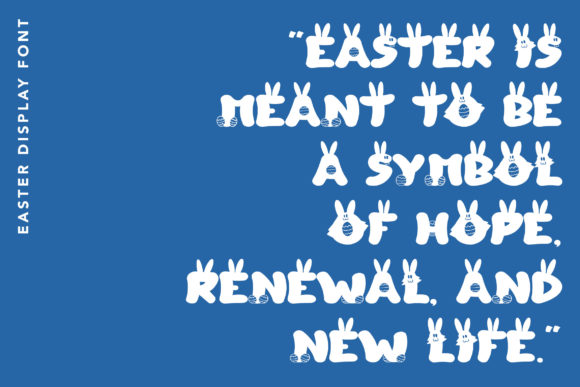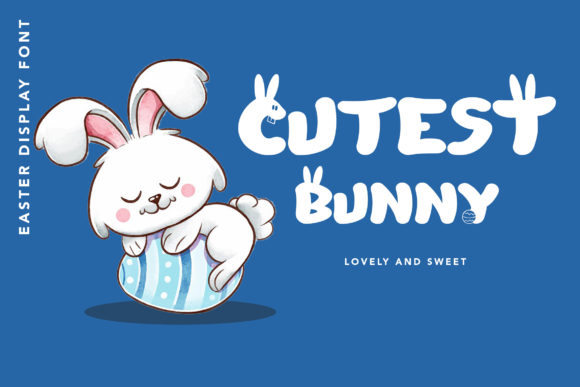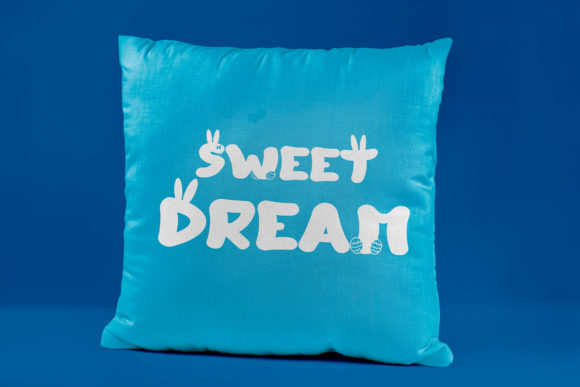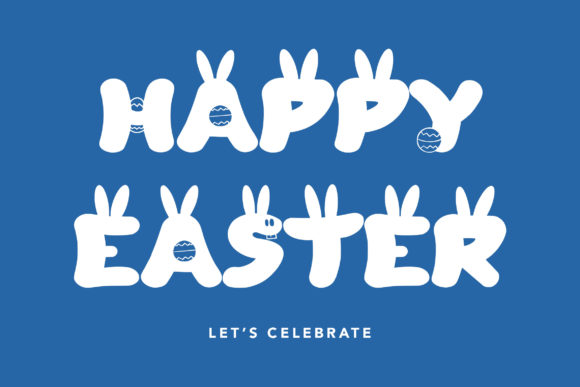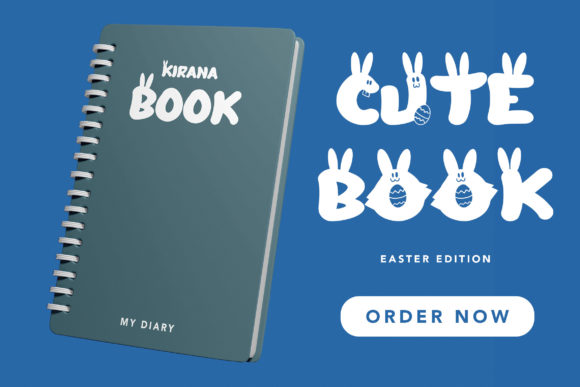
Easter Lover Font: The Perfect Addition to Your Font Library
Are you a designer or crafter looking for a font that can add a touch of cuteness and assertiveness to your creations? Look no further than the Easter Lover Font. This thick lettered, display font is perfect for a variety of projects, from Easter-themed designs to everyday creations that need a pop of personality.
What is Easter Lover Font?
Easter Lover Font is a unique and eye-catching display font that is sure to elevate any design. Its thick letters and cute aesthetic make it perfect for creating bold and attention-grabbing text. Whether you’re designing a greeting card, a flyer, or a social media post, this font is sure to make your text stand out.
Key Features of Easter Lover Font
- Thick Lettered: The Easter Lover Font features thick, bold letters that are perfect for creating eye-catching text.
- Cute and Assertive: The font’s cute aesthetic and assertive style make it perfect for designs that need a touch of personality.
- Display Font: Easter Lover Font is a display font, making it perfect for headlines, titles, and other large text elements.
- Versatile: This font can be used for a variety of projects, from Easter-themed designs to everyday creations.
Why You Need Easter Lover Font in Your Library
Easter Lover Font is an incredibly versatile font that can be used for a wide range of projects. Its unique aesthetic and bold style make it perfect for designs that need to stand out. Here are just a few reasons why you need Easter Lover Font in your library:
- Elevate Your Designs: Easter Lover Font can add a touch of sophistication and personality to any design.
- Perfect for Easter-Themed Designs: The font’s cute and festive aesthetic make it perfect for Easter-themed designs, such as Easter egg hunt flyers, Easter sale signs, and more.
- Great for Social Media: The font’s bold style and cute aesthetic make it perfect for social media posts that need to stand out.
- Easy to Read: Despite its bold style, Easter Lover Font is easy to read, making it perfect for designs that need to communicate a message quickly and effectively.
How to Use Easter Lover Font
Easter Lover Font is easy to use and can be incorporated into a variety of designs. Here are a few ideas for using this font:
- Easter-Themed Designs: Use Easter Lover Font to create festive Easter-themed designs, such as Easter egg hunt flyers, Easter sale signs, and more.
- Social Media Posts: Use the font to create bold and eye-catching social media posts that need to stand out.
- Greeting Cards: Use Easter Lover Font to create cute and personalized greeting cards for Easter and other holidays.
- Signs and Banners: Use the font to create bold and eye-catching signs and banners for events, sales, and more.
Tips for Getting the Most Out of Easter Lover Font
Here are a few tips for getting the most out of Easter Lover Font:
- Experiment with Colors: Easter Lover Font looks great in a variety of colors, so don’t be afraid to experiment and find the perfect color for your design.
- Pair with Other Fonts: The font pairs well with other fonts, so try pairing it with a script font or a sans-serif font to create a unique and interesting design.
- Use for Headlines: Easter Lover Font is perfect for headlines and titles, so use it to create bold and eye-catching text elements.
Easter Lover Font is a unique and versatile font that is perfect for designers and crafters looking to add a touch of cuteness and assertiveness to their creations. Its thick letters, cute aesthetic, and bold style make it perfect for a variety of projects, from Easter-themed designs to everyday creations. With its ease of use and versatility, Easter Lover Font is sure to become a staple in your font library.